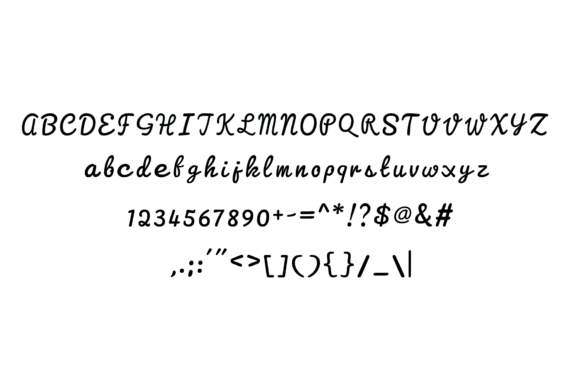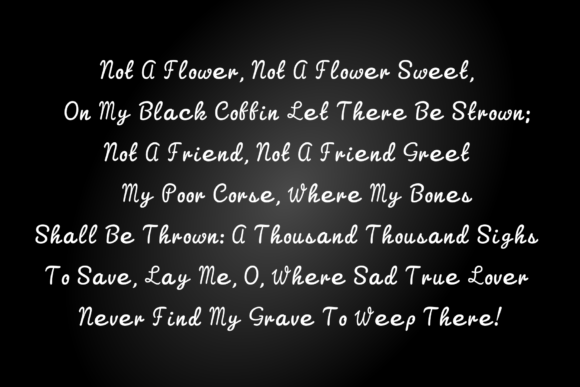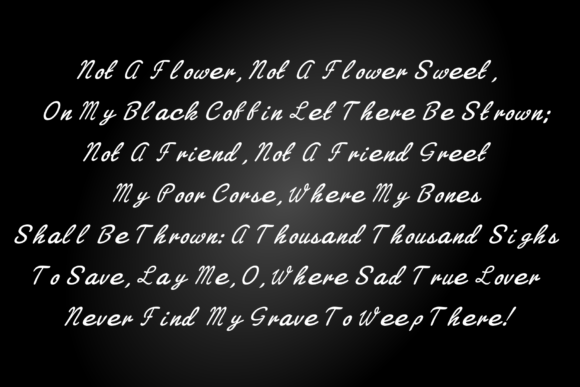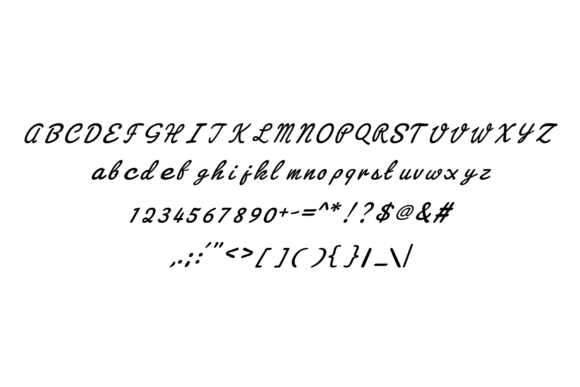
Peacy Font
About Peacy Font
“Peacy” is a cute and quirky handwritten font that exudes an incredibly friendly feel. Tailored for a variety of creative purposes, whether it’s for Instagram posts, DIY projects, or any other design endeavor, this font is crafted to turn any creative idea into a true piece of art.
The cuteness and quirkiness of “Peacy” make it a delightful choice for projects that require a playful and approachable vibe. The handwritten style adds a personal touch, making it suitable for a range of applications where a friendly and casual aesthetic is desired.
Whether you’re designing social media posts, crafting DIY projects, or working on any creative venture, “Peacy” is designed to transform your ideas into visually appealing works of art. Its versatility allows it to adapt seamlessly to various contexts, making it a go-to font for expressing creativity with a friendly and charming touch.
In summary, “Peacy” is more than just a font; it’s a creative tool carefully crafted to infuse cuteness and friendliness into your projects. Whether you’re designing for social media or embarking on DIY endeavors, let this quirky handwritten font be the key to turning your creative ideas into true pieces of art that captivate and delight.